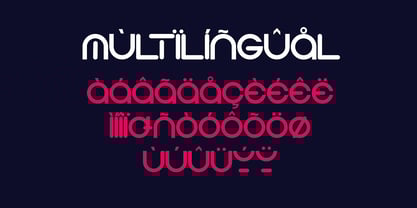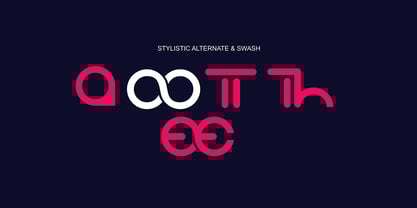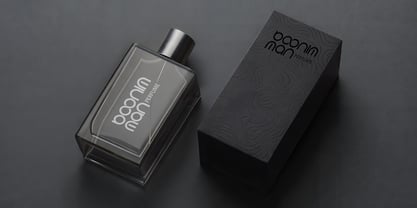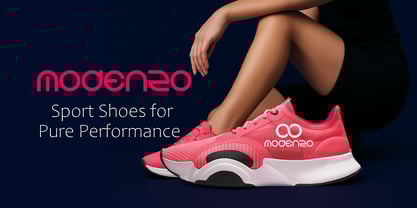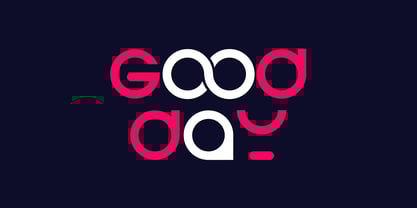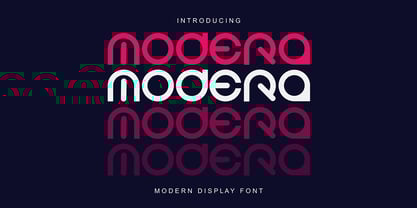
Modera
The Modera Font Family was designed by Sipanji and published by Sipanji21. Modera contains 1 styles. More about this family
Modera is a modern rounded display font that blends geometric precision with sleek contemporary style. Built from clean circular forms and smooth terminals, it delivers a bold yet friendly presence that works beautifully in today’s branding, digital products, and editorial layouts. Each letter is designed with a sense of rhythm and flow, giving the typeface a stylish, confident tone that feels right at home in fashion, music, tech, and lifestyle visuals. Modera sits at the intersection of modernist design and futuristic typography. The letterforms are based on simple geometric shapes, but refined with subtle optical corrections and carefully balanced proportions. The result is a display font that feels minimal and refined, but never cold. The rounded corners soften the overall feel, while the strong horizontal and vertical structure keeps every word stable and impactful. With its distinctive shapes—especially on characters like a, e, r, and n—Modera is perfect for logotypes, wordmarks, and bold headlines. It has enough uniqueness to stand on its own as a brand signature, yet remains clean enough to pair with more neutral text typefaces in complex layouts. Use it for packaging, posters, interfaces, streaming covers, or social media graphics whenever you need typography that feels stylish, urban, and contemporary. Modera includes uppercase and lowercase letters, numbers, punctuation, multilingual support, ligatures, and stylistic alternates. The ligatures and alternates offer additional flexibility, allowing you to create smoother letter connections or more experimental shapes in logos and display typography. They help give your lettering a customized, designed-by-hand feel while still relying on a consistent typographic system. Ideal Applications Branding and visual identity for fashion, music, tech, and creative studios Logo design and wordmarks with a clean, modern attitude Posters, album covers, and event graphics Packaging for cosmetics, gadgets, lifestyle products, and premium goods Website headers, app interfaces, and digital banners Social media campaigns that need strong, recognizable typography Why designers choose Modera Designers choose Modera when they want a modern display face that feels bold, geometric, and approachable at the same time. Its rounded forms give it warmth, while the modular construction keeps it sharp and professional. The unique curves allow it to stand out in crowded visual spaces, but its structure stays simple enough to remain versatile across many industries. The inclusion of ligatures and stylistic alternates means Modera can easily adapt to different moods—more minimal and restrained for corporate tech, or more expressive and stylized for music and fashion branding. This flexibility makes it a reliable tool in any designer’s library. Whether you are building a full brand system or just looking for a strong headline font to anchor your layout, Modera brings clarity, style, and modern character to every project.